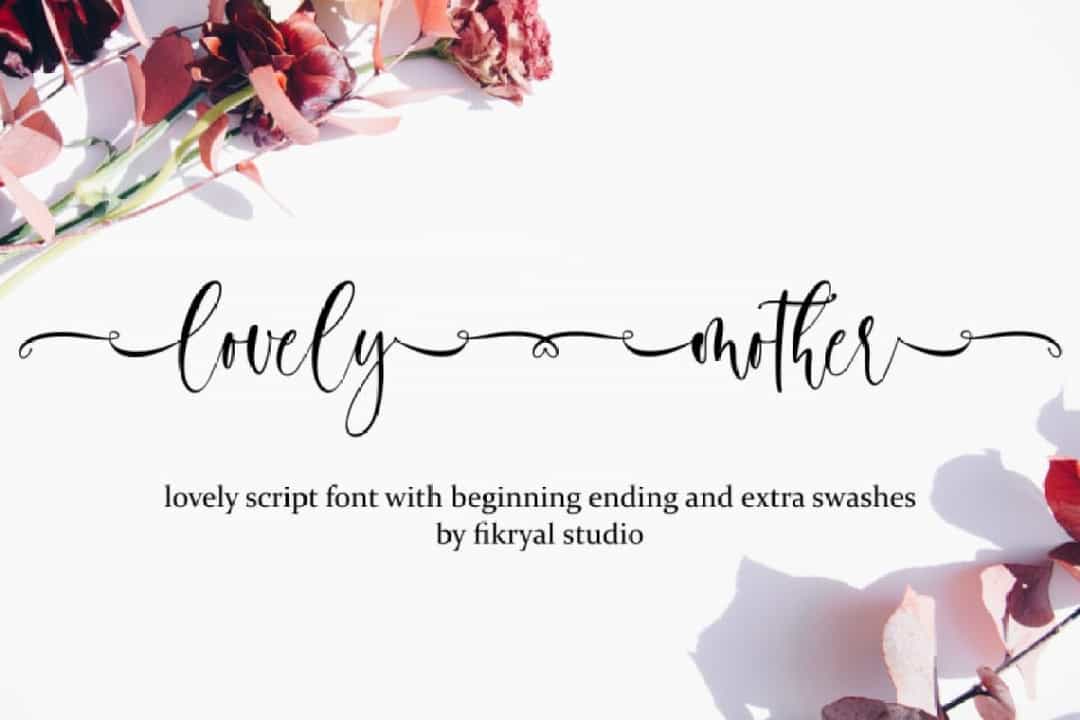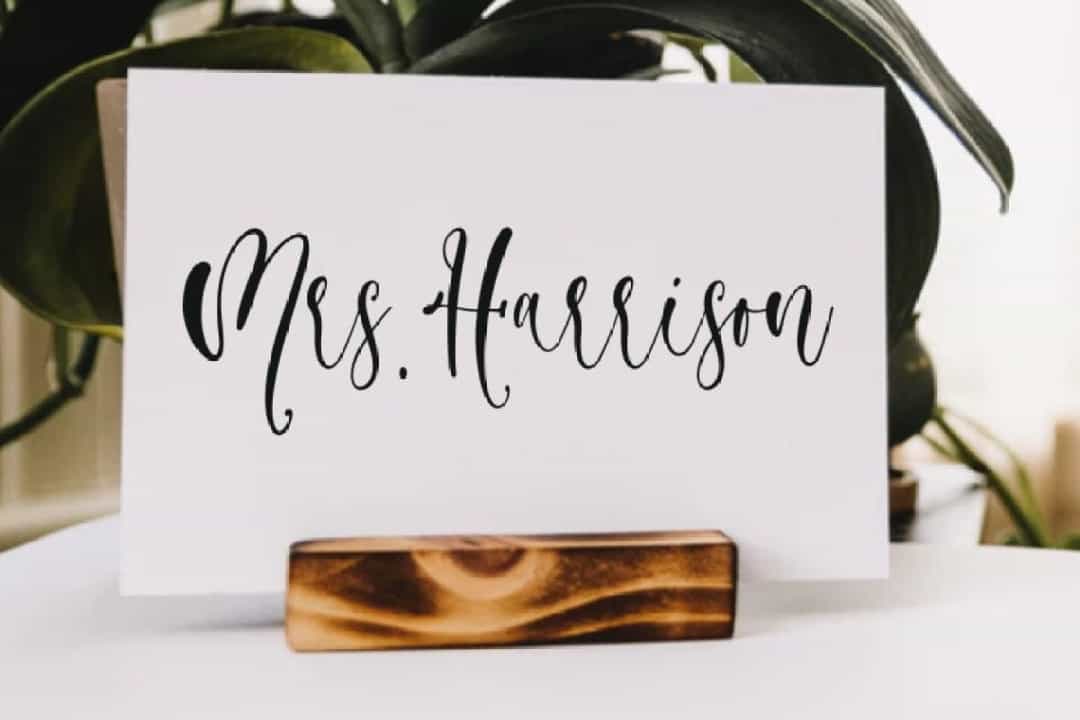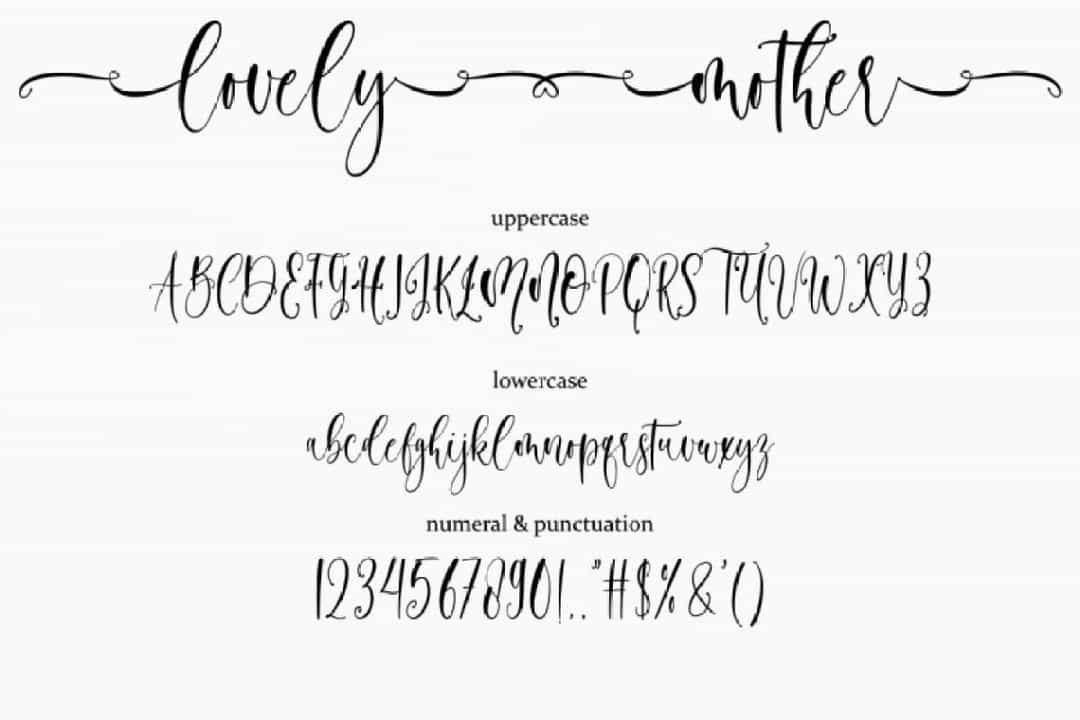
Lovely Mother is a modern calligraphy with beginning and ending swashes font which is quite common in today’s designs. Written in a modern style with nice initial and final decorations to arrest the readers’ eye. It is very versatile and could be worn on a very casual day yet it can be used for other dressy occasions.